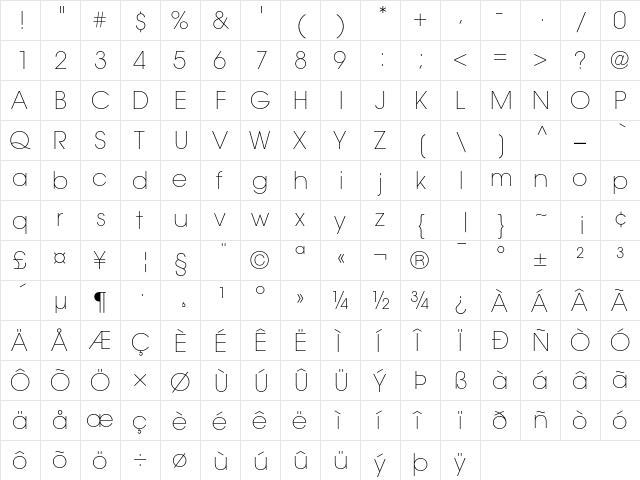
ITC Avant Garde Gothic Extra Light
Design Context for ITC Avant Garde Gothic Typeface
ITC Avant Garde Gothic has the quiet confidence of well-executed sans-serif typography: versatile, unobtrusive, and dependable at any size. The delicate stroke weight brings airiness and refinement to layouts.
Ideal for fashion and beauty branding, minimal editorial layouts, and premium digital experiences.
Font Pairing: Pair ITC Avant Garde Gothic with a medium or bold serif for headlines — the weight contrast creates an elegant, high-end feel.
Pro Tip: Avoid using ITC Avant Garde Gothic at very small sizes where its slender strokes can disappear. It performs best at medium to large sizes.